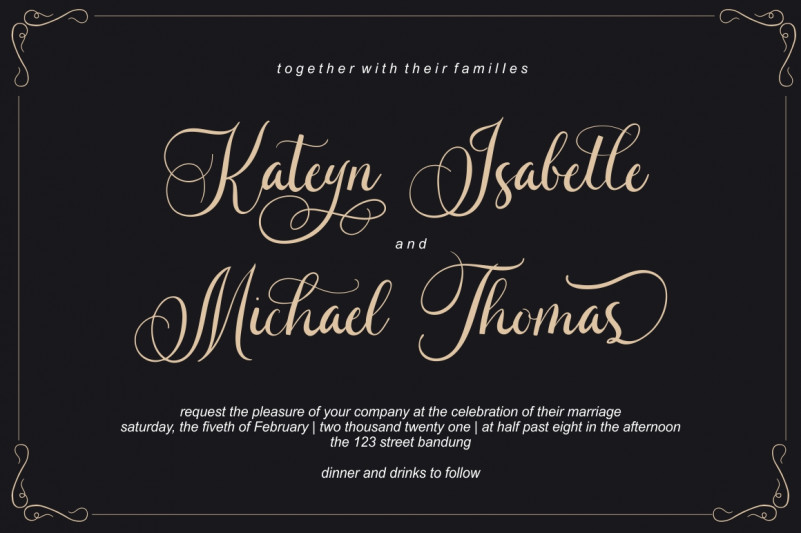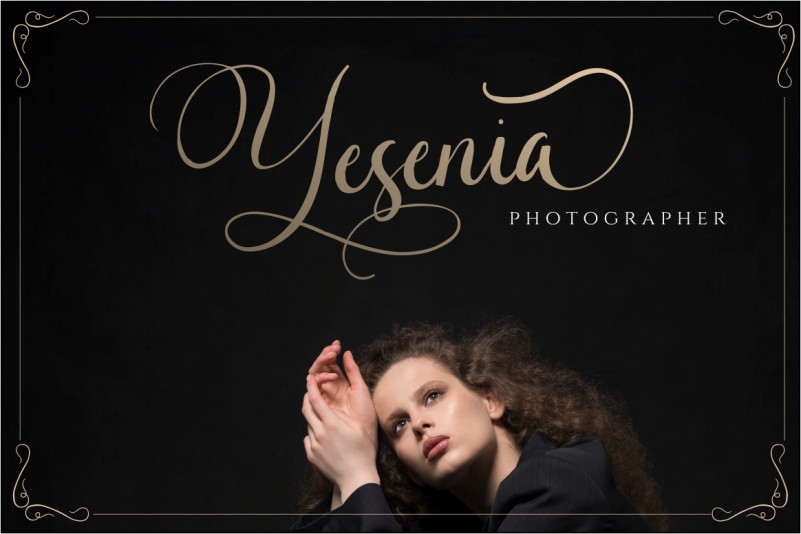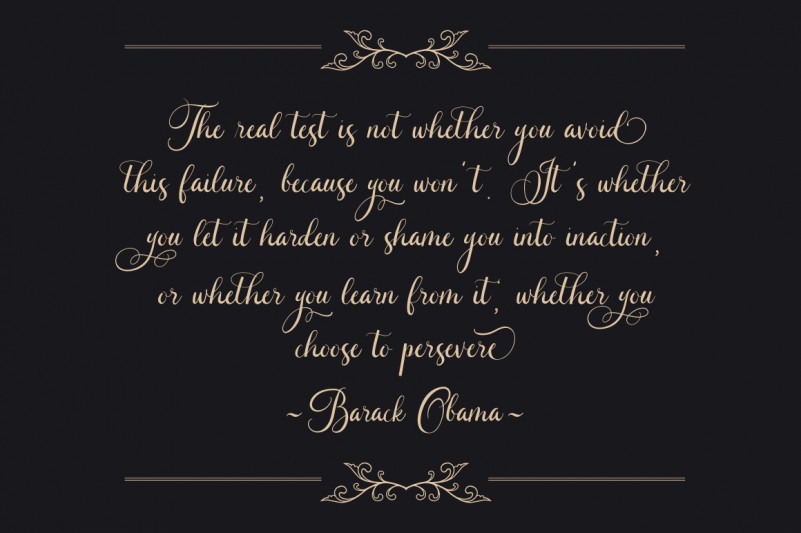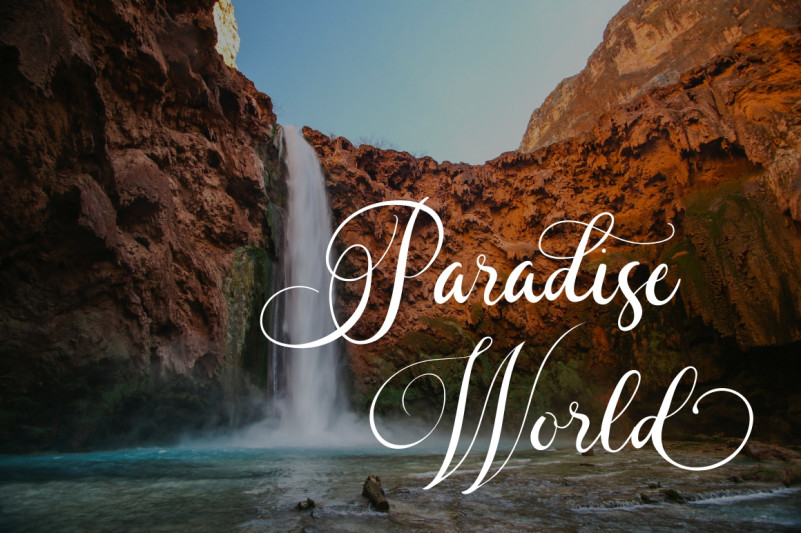
Caliner Font
Caliner Script Calligraphy Font
This is a lovely and delicate script font that exudes elegance and class. This font was particularly crafted for those who need a beautiful and refreshing look to their designs.